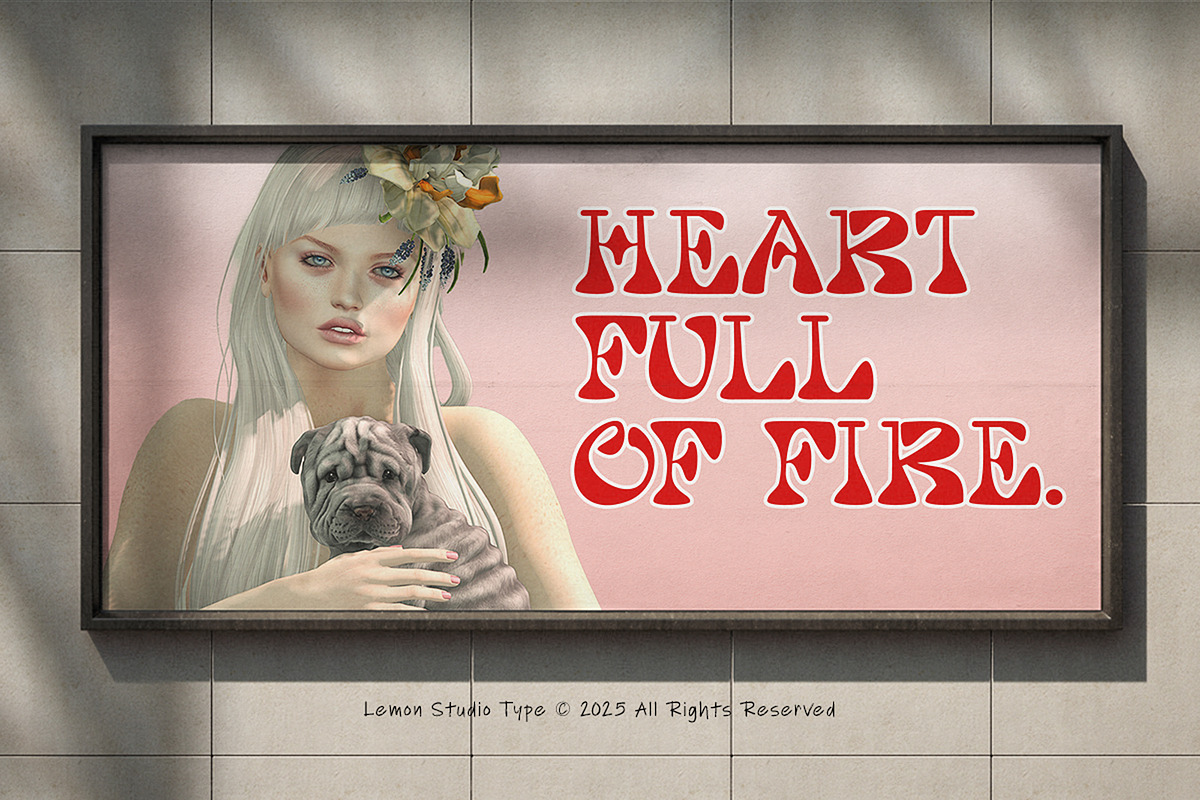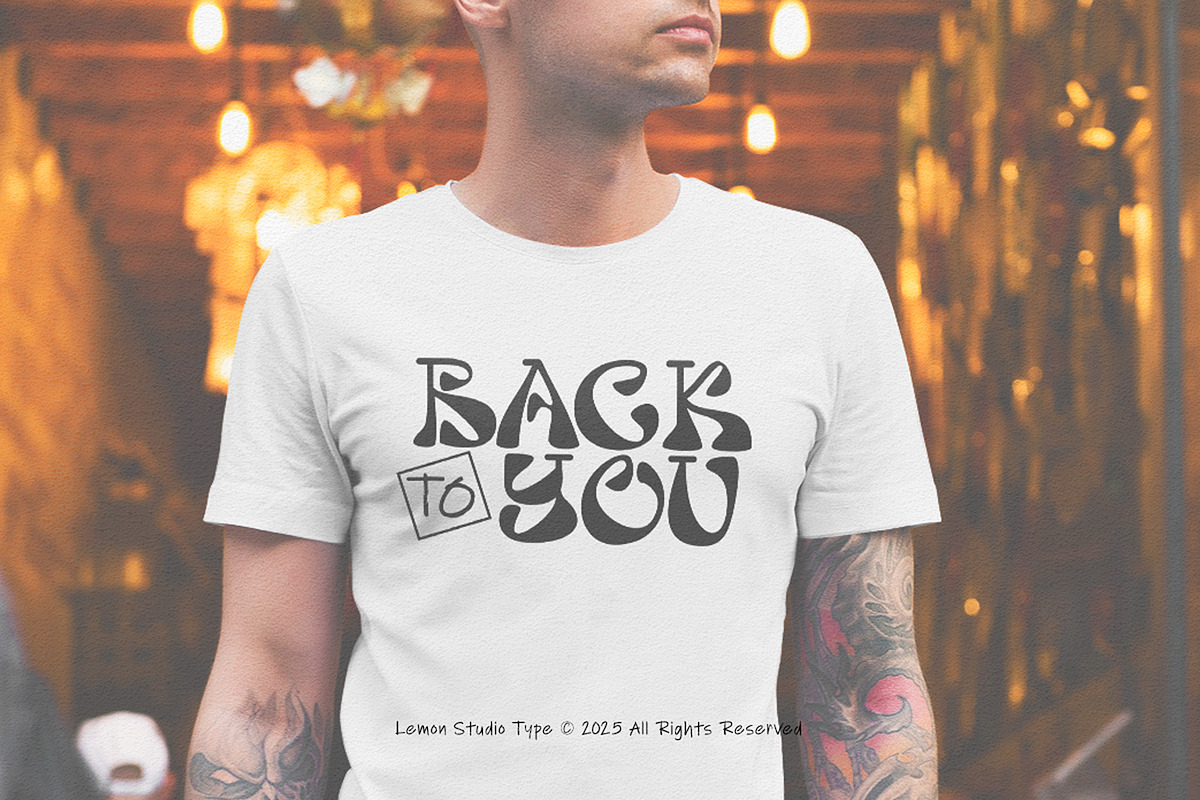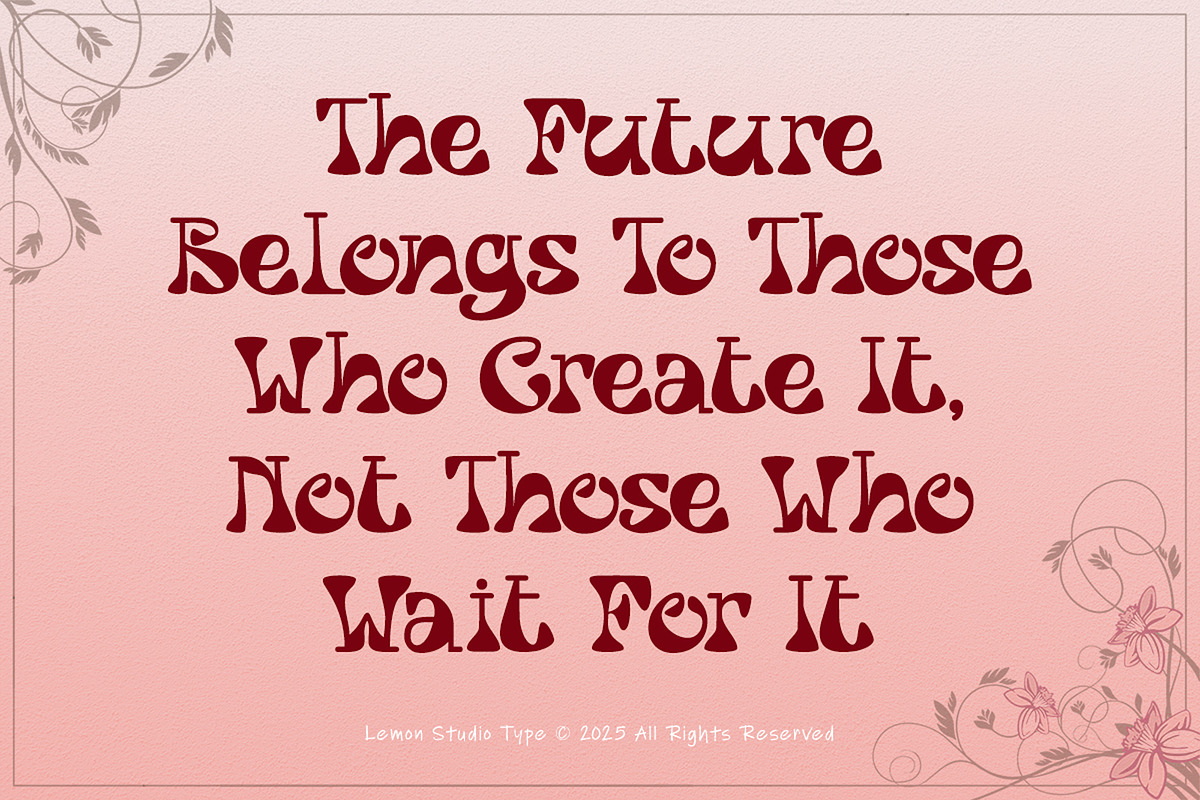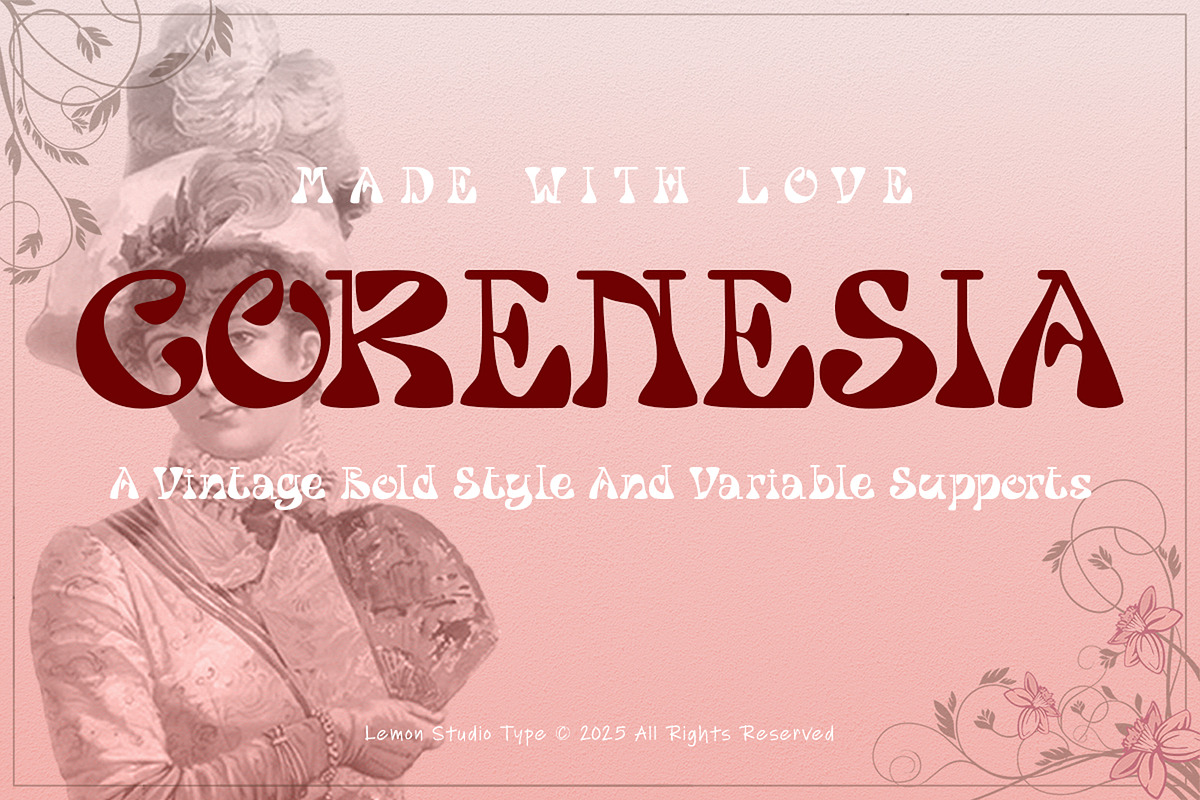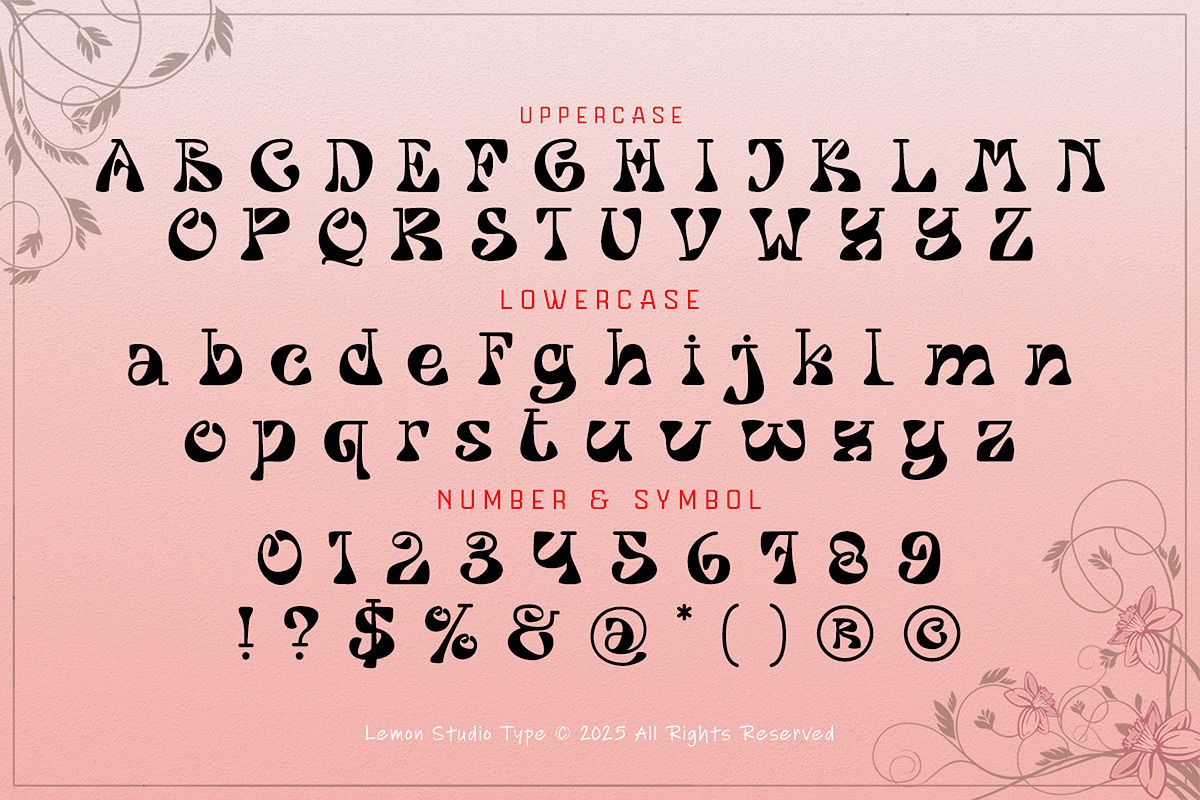
Corenesia
Step into the groove with CORENESIA, A bold display typeface that embodies the vibrant energy of the psychedelic era. Its fluid curves and groovy letterforms infuse a playful, artistic rhythm into any design, making it ideal for posters, branding, album covers, packaging, or social media visuals that require a striking statement. Designed to capture the spirit of freedom and creativity, this typeface blends nostalgic 70s charm with a modern edge. Each letter dances with character, ensuring your message stands out. Unleash your creativity and let your design shine with CORENESIA. A font that celebrates boldness, artistry, and the colorful essence of retro design.